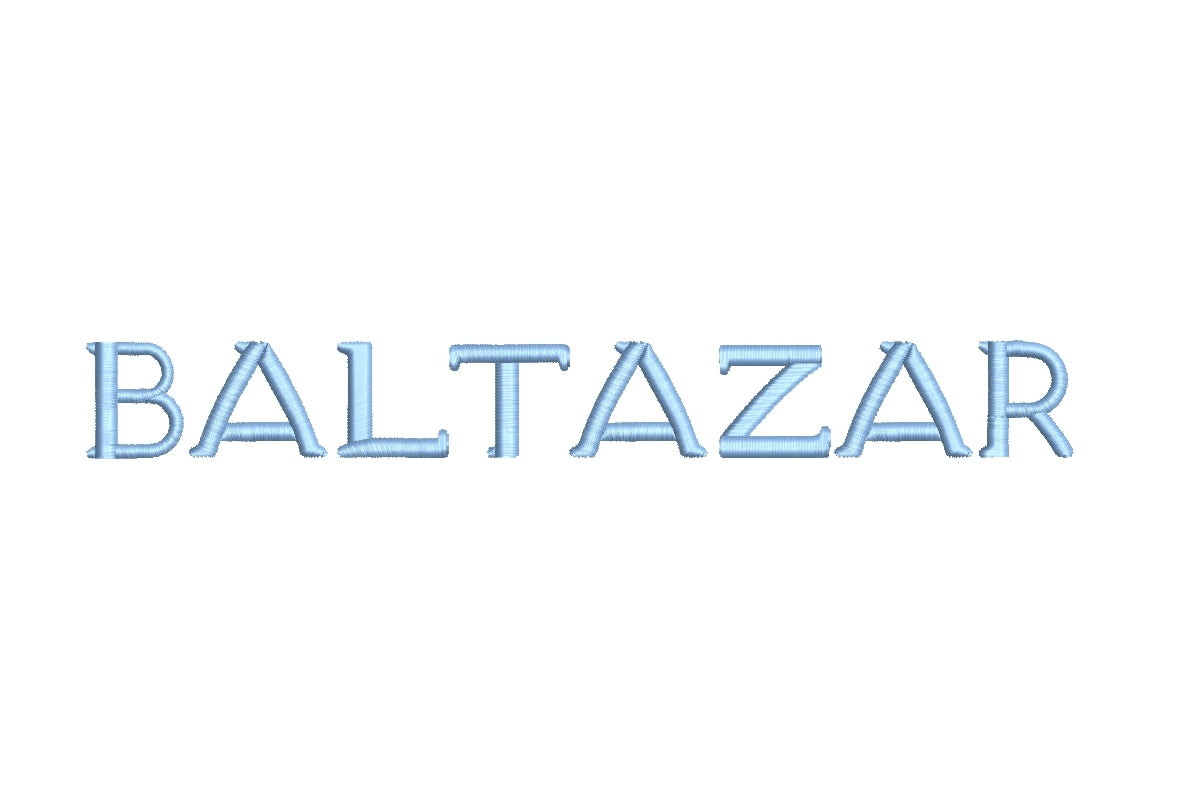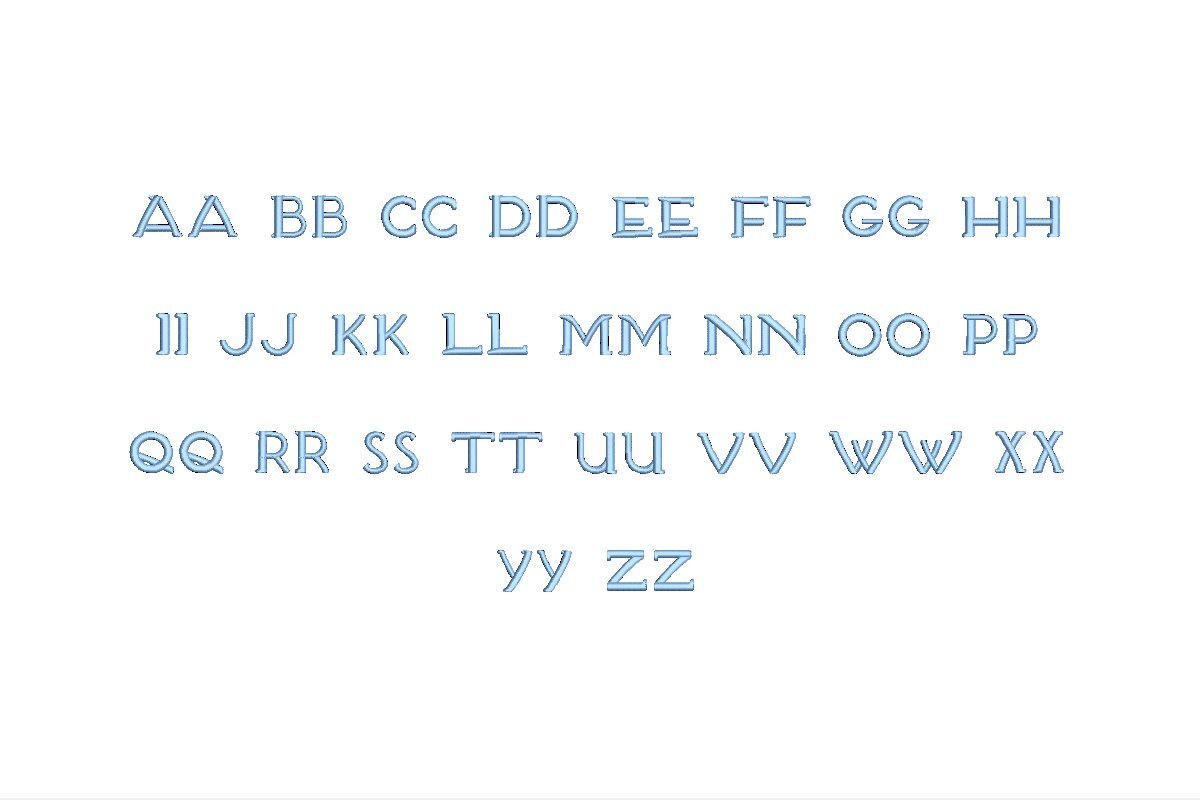
Discover the unmatched elegance of the Baltazar ESA Font, meticulously designed for seamless compatibility with Wilcom Studio e4.5.6 and Hatch 3 versions and beyond. Elevate your embroidery projects with this exquisite typeface. Whether you're a seasoned embroiderer or a beginner, Baltazar ESA simplifies your creative journey. Its seamless integration with Wilcom Studio and Hatch makes digitizing and stitching a breeze. Crafted to perfection, this font adds a touch of sophistication and professionalism to your designs. Enhance your embroidery work with this versatile font and achieve remarkable results. Elevate your embroidery game with Baltazar ESA - where style meets functionality. Order now and transform your designs effortlessly.